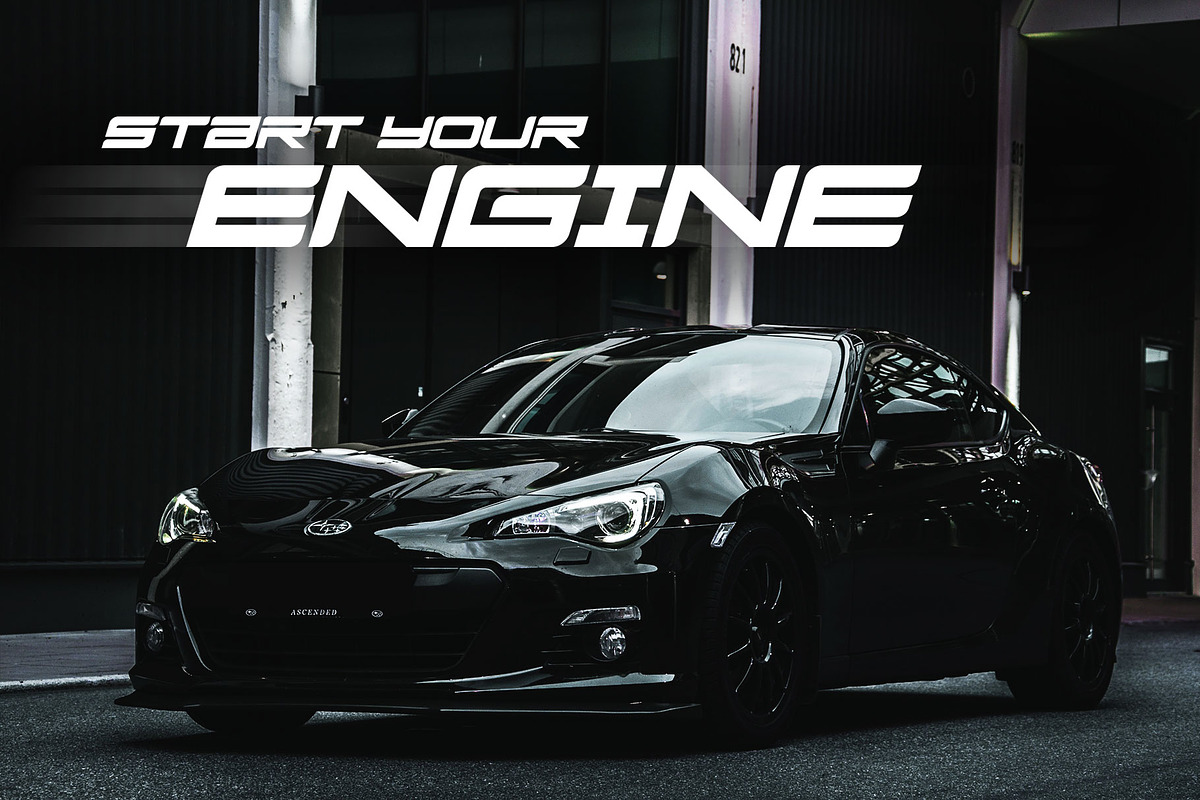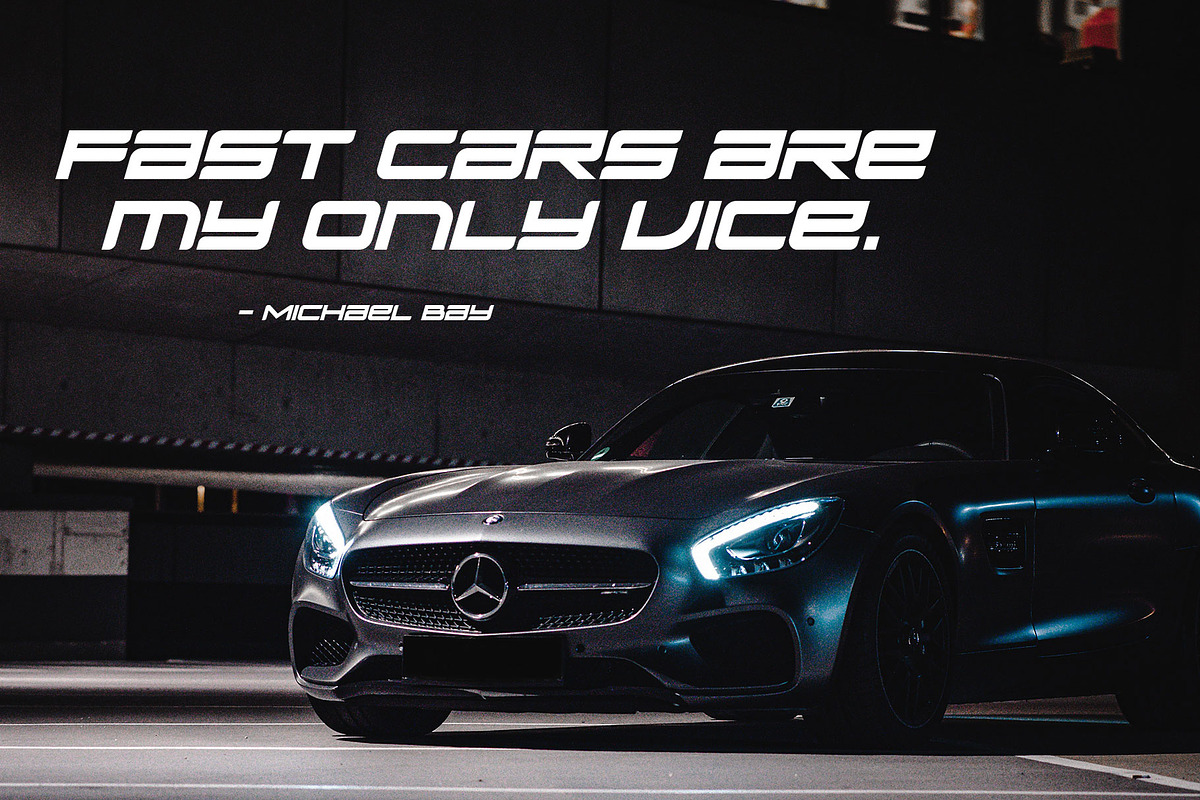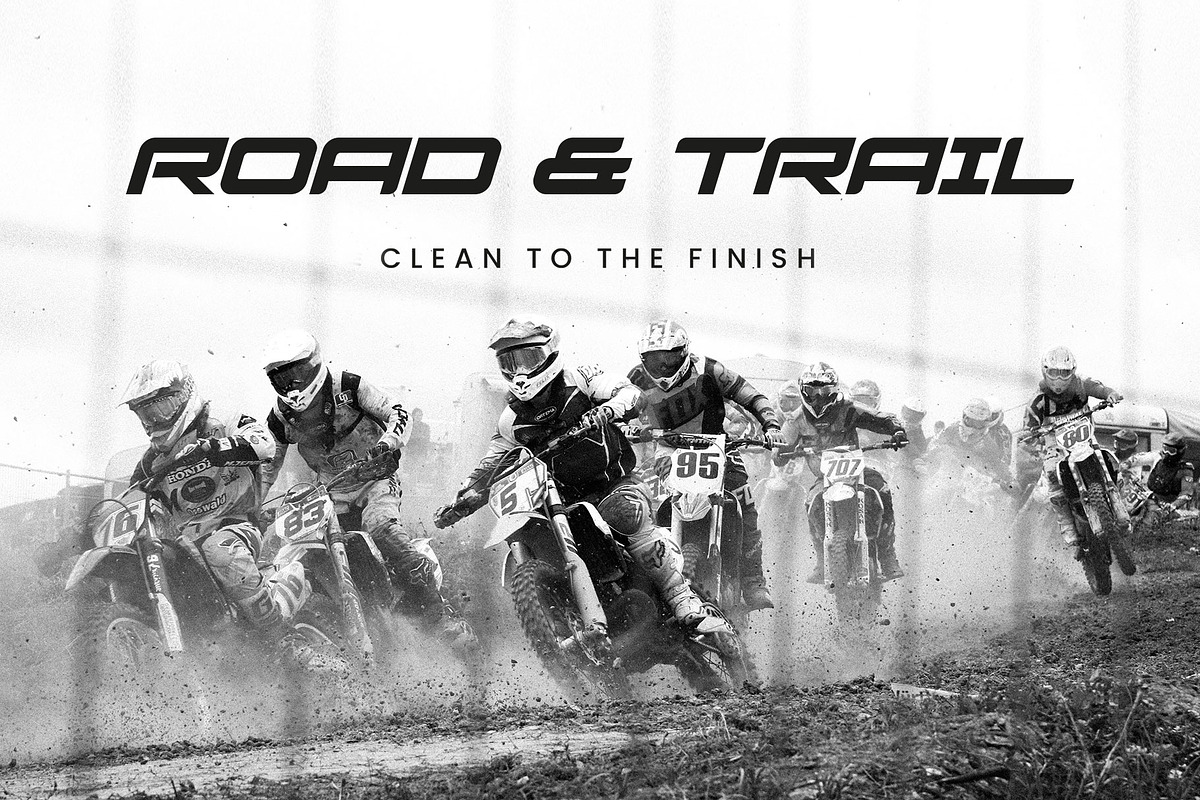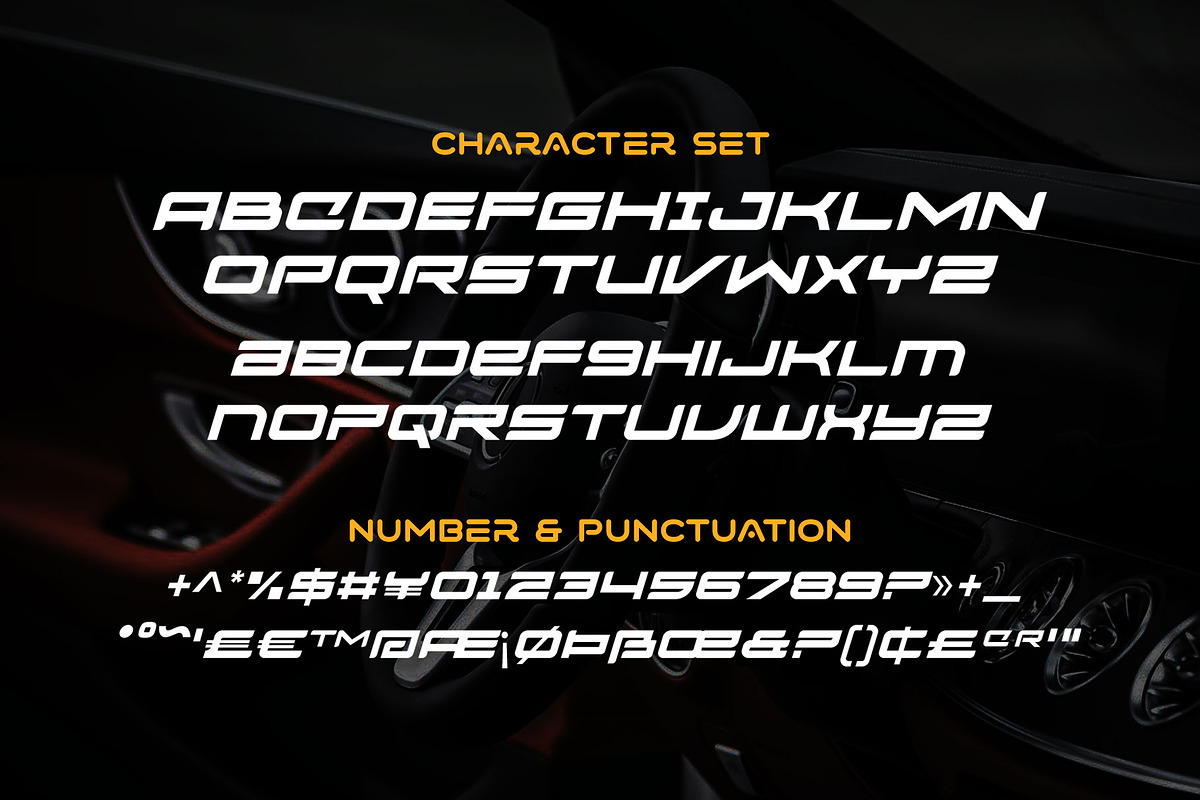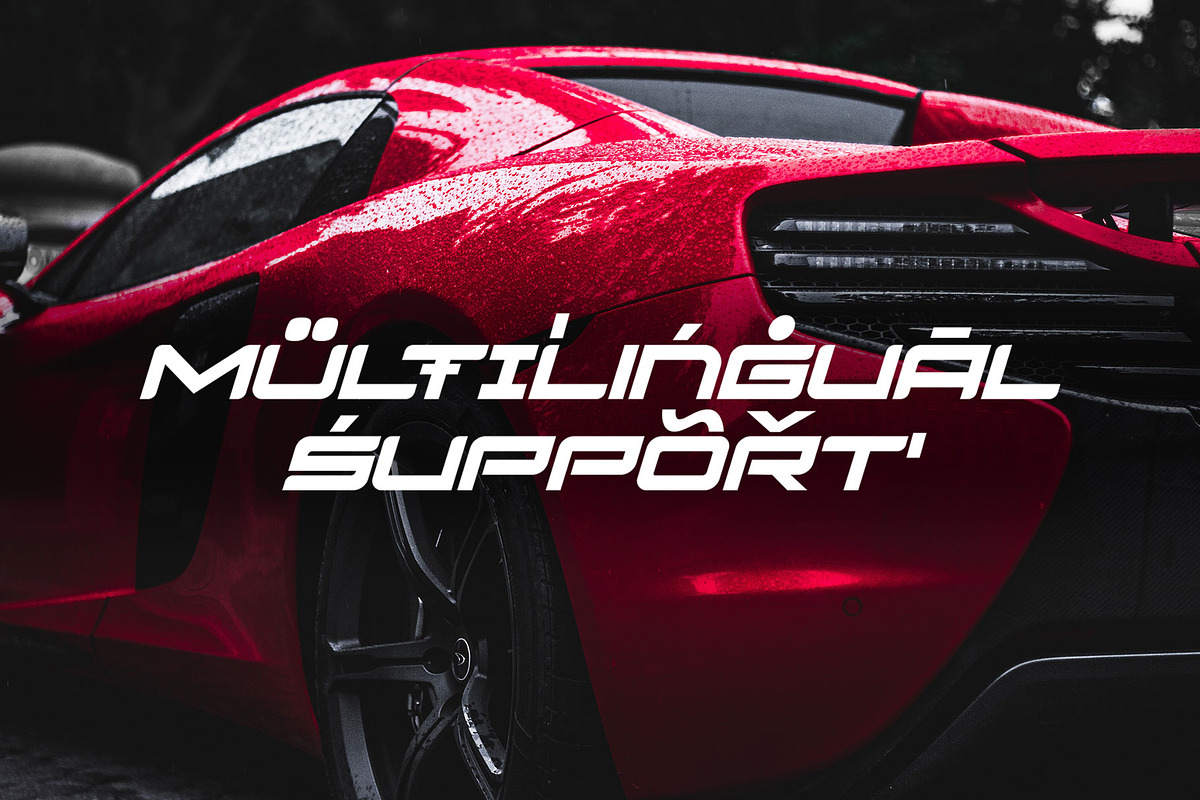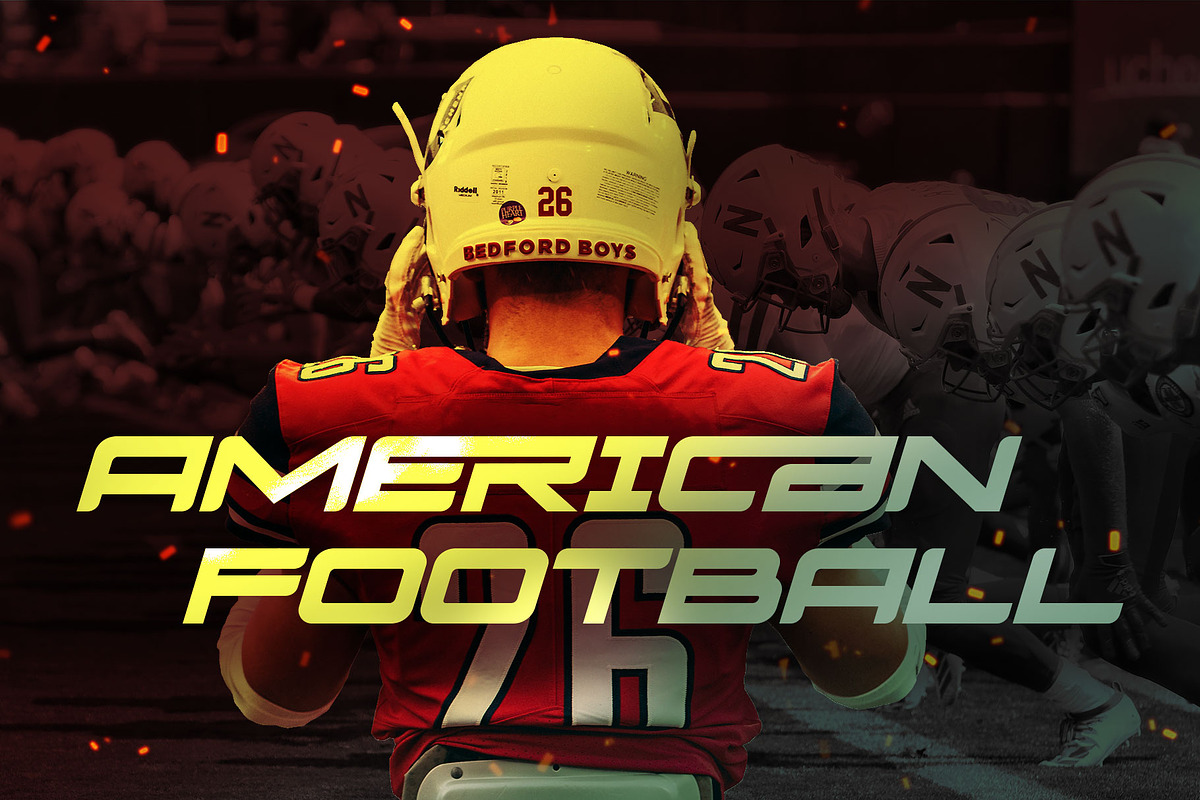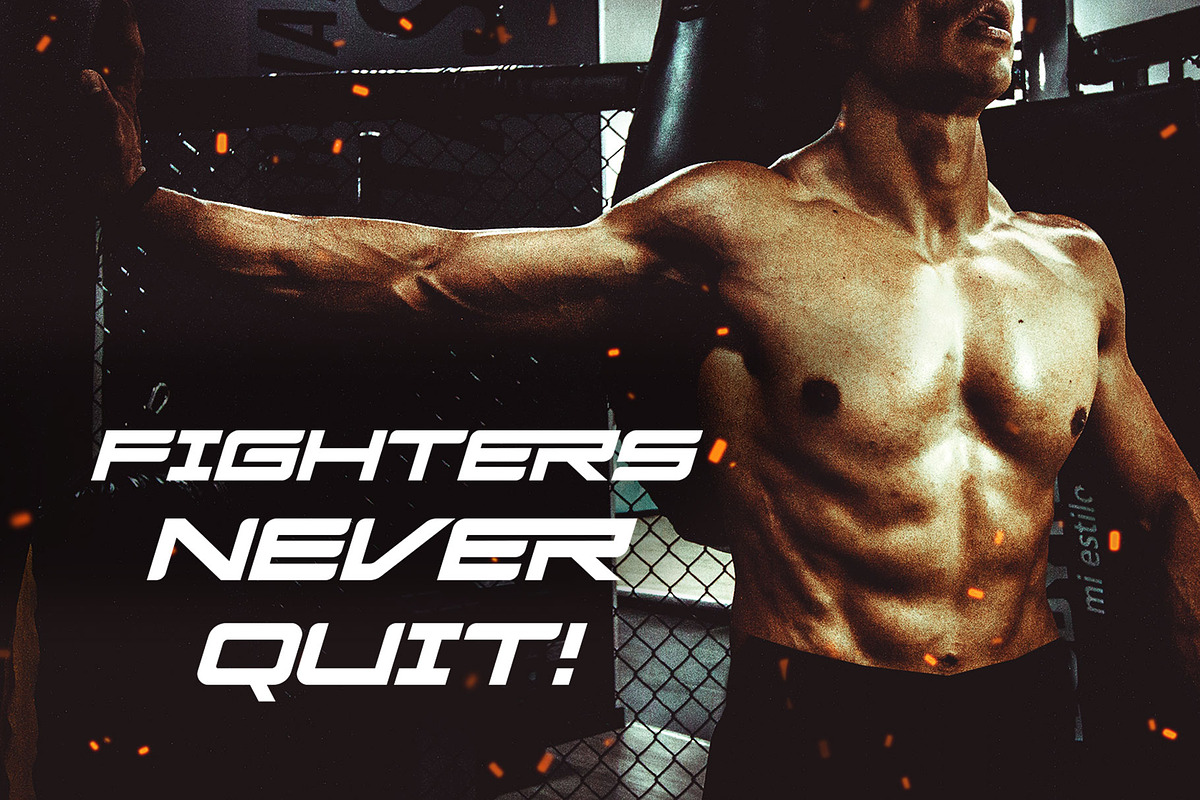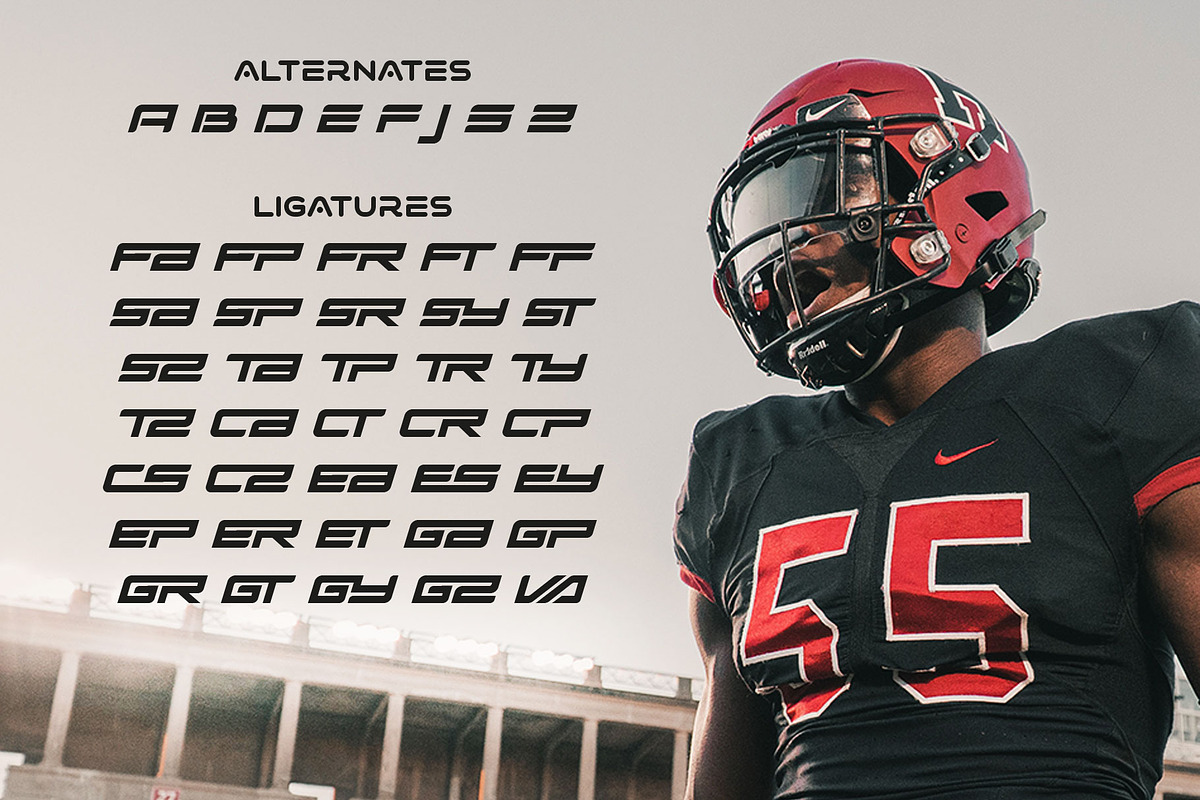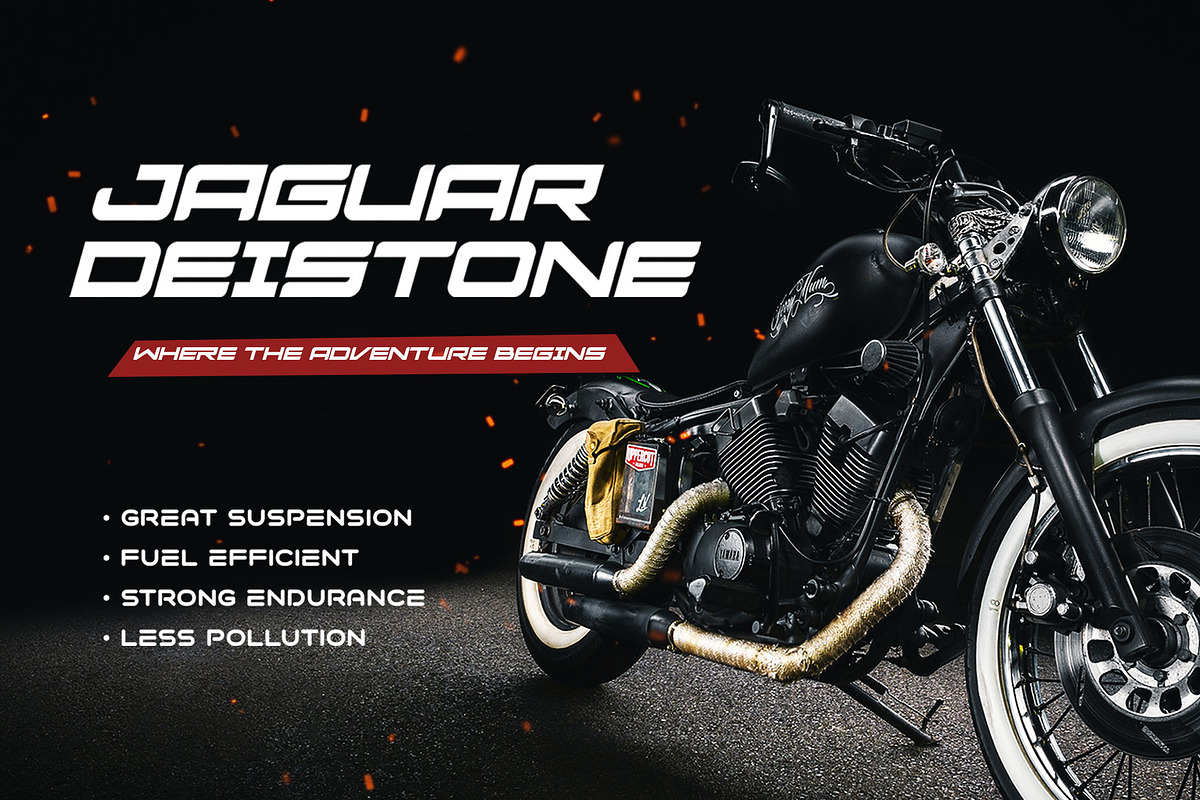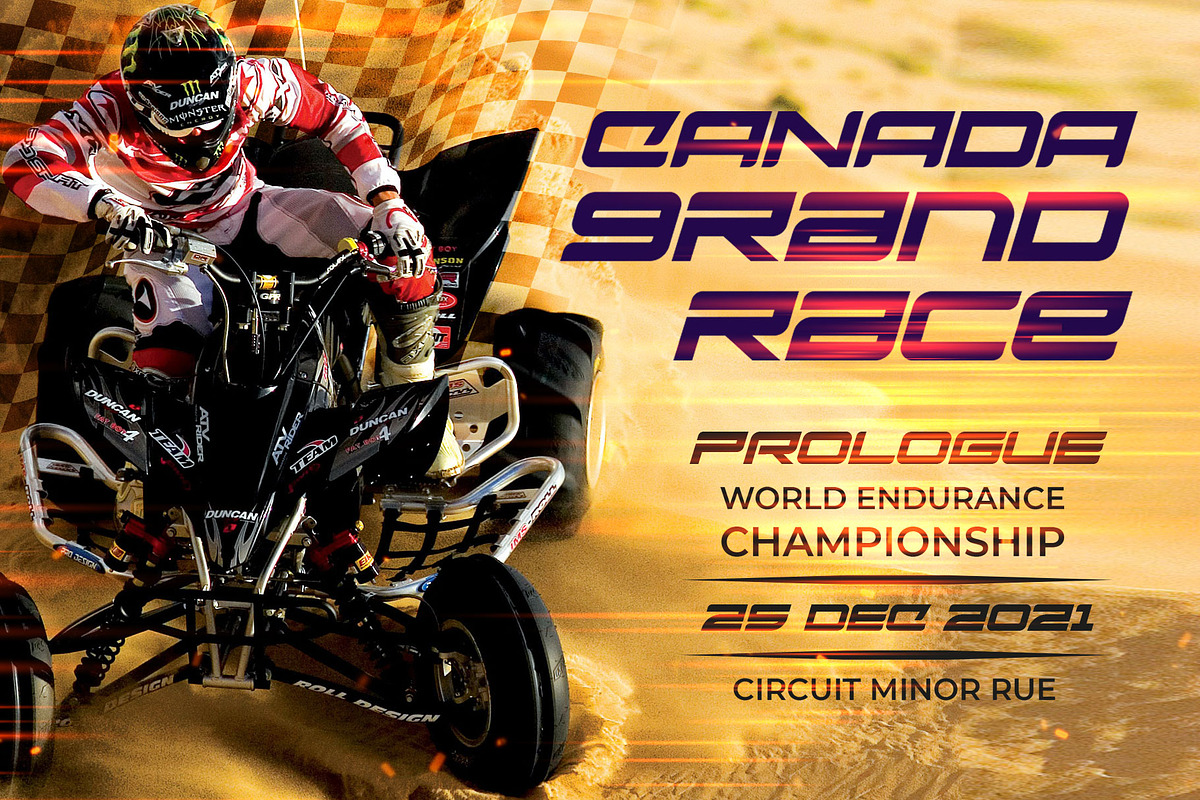
Siegra - Sporty Tech Font
Siegra is a cool combination of powerful, sporty, automotive, elegant, and futuristic. One of kind techno font that versatile to apply in various design styles.
Wide, sharp, and curvy of the letterforms that speed up your energy and get more confidently design. Siegra is suitable for posters, branding, campaign, logo, keychains, stickers, t-shirts, automotive, and many more!
Completed with a lot of stylish ligatures to gives your design more powerful! Multilingual support and PUA encoded. Get yours!